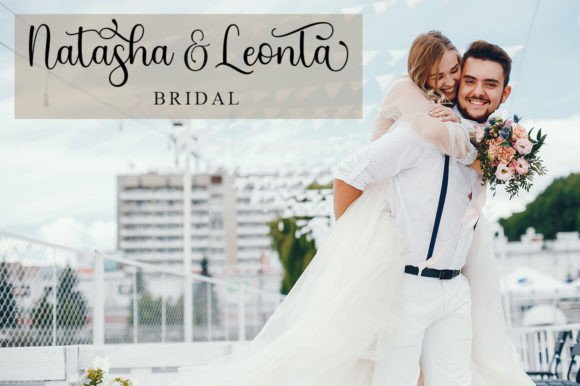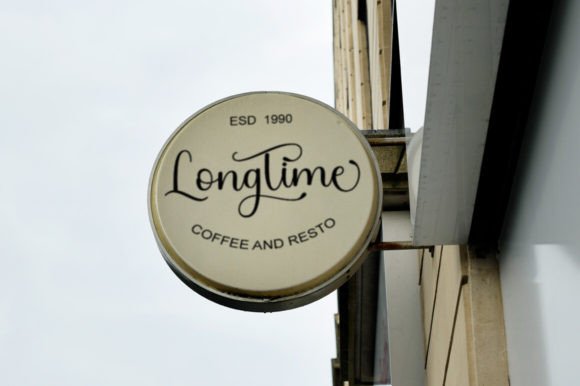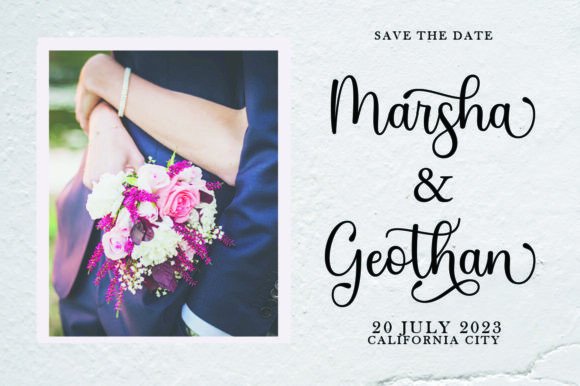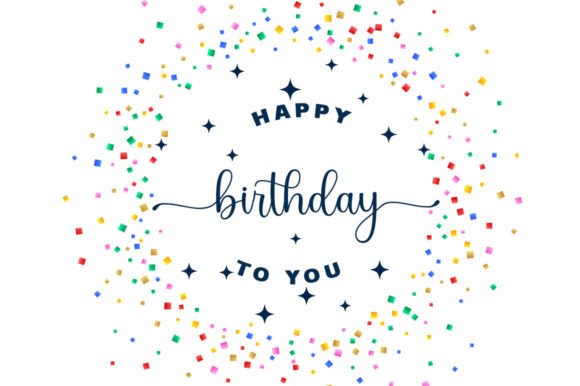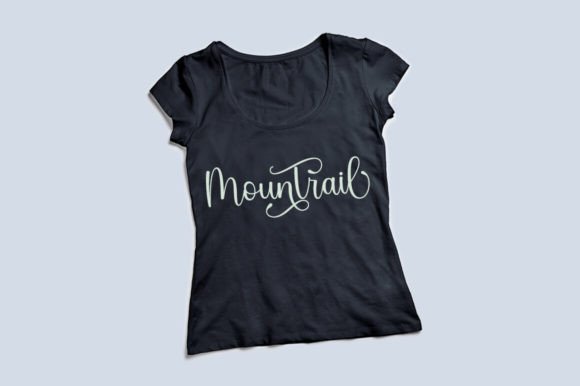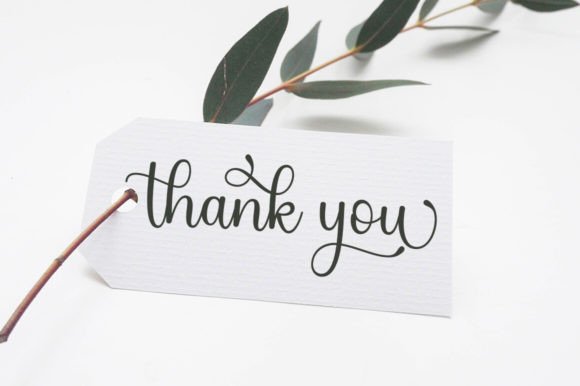
Introduction to Mount Loneli Font
Mount Loneli is a romantic and sweet calligraphy typeface with characters that dance along the baseline.
It has a casual and yet elegant touch It can be used for various purposes such as logos, wedding invitations, headings, t-shirts, letterhead, signage, labels, news, posters, badges etc.